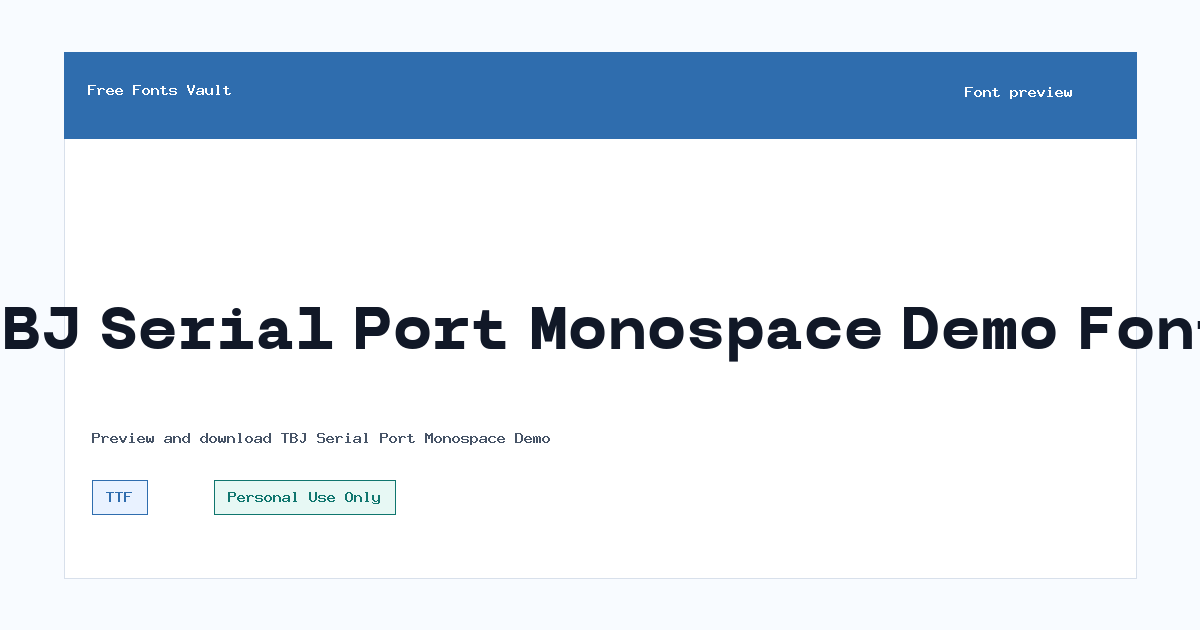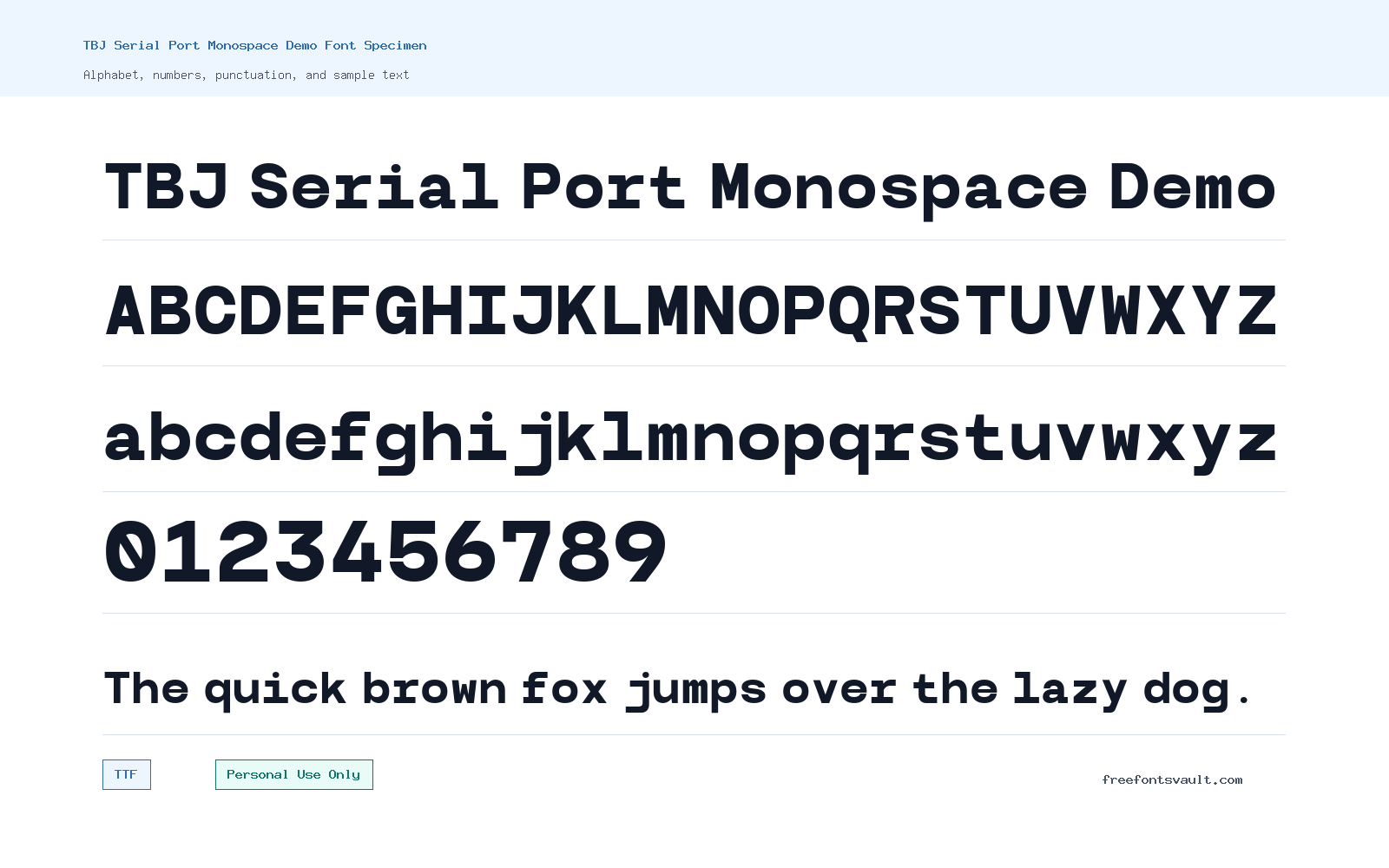
TBJ Serial Port Monospace Demo
• Designer Arif Rijal
• Foundry Taboja Studio
TBJ Serial Port Monospace Demo font.
TBJ Serial Port Monospace Demo is a personal-use TrueType font from Arif Rijal and Taboja Studio. Its name points toward a monospaced, technical feel, making it worth testing for display text, interface-inspired layouts, poster headlines, and experimental logo drafts.
About TBJ Serial Port Monospace Demo
TBJ Serial Port Monospace Demo is best approached as a display-focused monospace font rather than a long-reading text face. A monospace style gives each character a fixed-width rhythm, which can make words feel structured, coded, mechanical, or terminal-like. That kind of spacing is useful when you want a design to feel precise without relying on decorative flourishes. Because the family name includes “Demo,” visitors should treat it as a trial or limited-use version unless a full license from the designer or foundry says otherwise.
Use the preview tool to test the exact words you plan to design with, especially if you are working on a logo concept, poster title, game UI mockup, music cover, tech-themed graphic, or social media layout. Monospaced fonts can look sharp in short phrases, but they may feel stiff in long paragraphs because every letter takes the same horizontal space. Try it in uppercase, lowercase, numbers, and punctuation before downloading. If you plan to use it in a brand identity, client project, product packaging, website, app, merch, advertising, or any other commercial setting, check the license carefully and obtain proper permission first.
• Monospace-style family name suited to technical, coded, terminal, or interface-inspired typography.
• Short-text rhythm can work well for titles, labels, mockups, and experimental lettering.
• Tech posters, coding-themed graphics, and digital interface mockups.
• Logo drafts and wordmark experiments where a fixed-width look is useful.
• Music covers, gaming graphics, zines, stickers, and social posts using short phrases.
• Typography studies, personal design tests, and non-commercial concept work.
• Web mockups where you want to test a monospace display tone before choosing a production font.
For best results, start with short words or compact phrases. Monospace fonts often create strong horizontal rhythm, so check letter spacing at the actual size you plan to use. In logo work, test whether wide letters, narrow letters, numbers, and punctuation feel balanced together. For posters, pair it with a plain sans serif or a quiet serif for body text so the headline remains the focus. For web mockups, use it in headings, labels, buttons, code-style callouts, or navigation experiments rather than long articles. If the design is for a client, business, monetized website, paid product, advertisement, or public brand identity, resolve the Personal Use Only license before moving past the mockup stage.
Who designed TBJ Serial Port Monospace Demo?
The designer is listed as Arif Rijal, and the foundry is listed as Taboja Studio.
What is this font best used for?
It is best tested in short display settings such as posters, logo drafts, tech graphics, interface mockups, game-style text, and social media artwork. It is less likely to be comfortable for long body text.
How should I pair this font?
Pair it with a simple sans serif for clean layouts, or with a restrained serif if you want more contrast. Avoid pairing it with another strong display font unless the design is intentionally experimental.